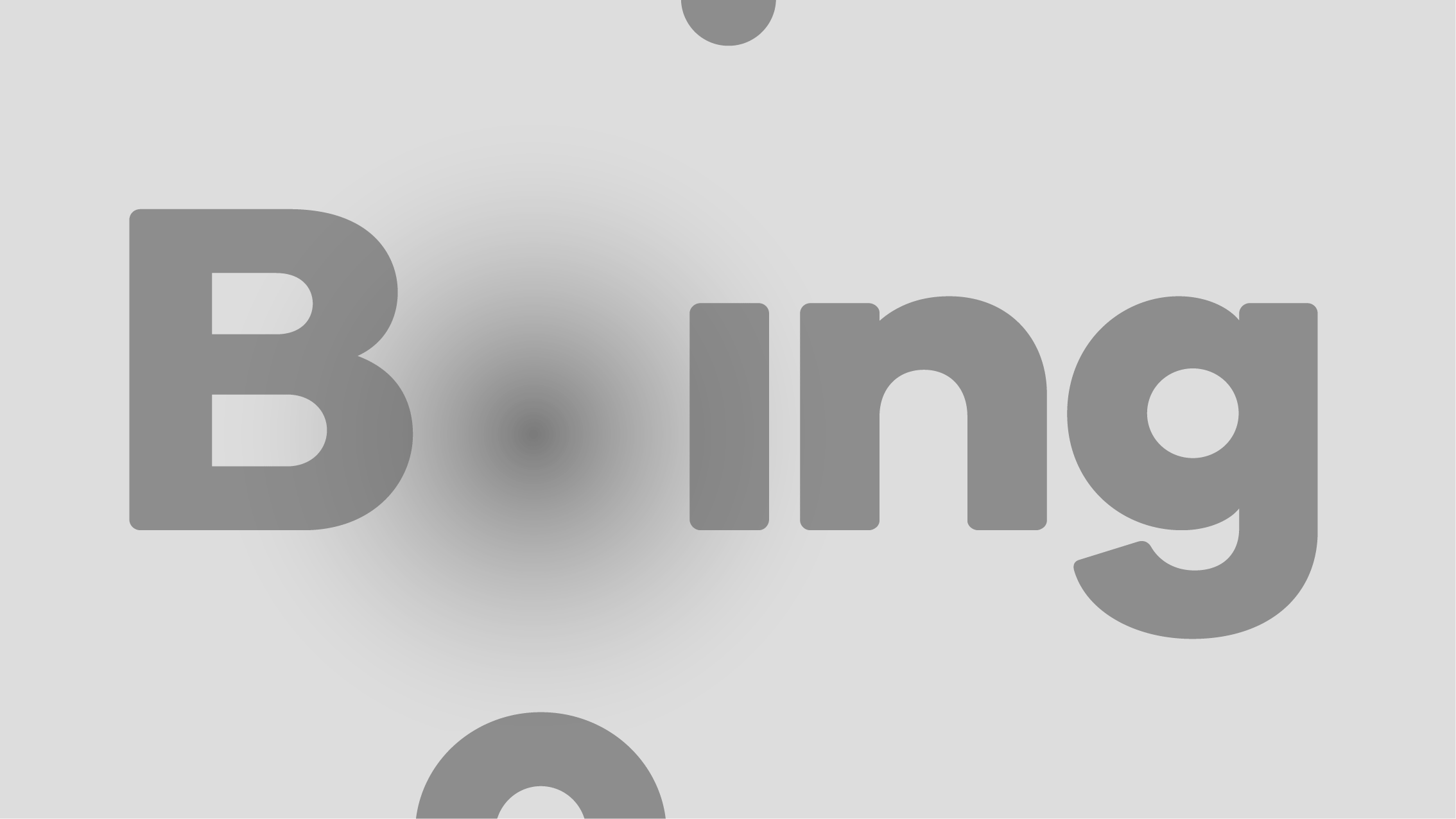
Boing is a bold, rounded sans serif font ideal for a range of communication needs. The face is soft yet solid, imposing yet friendly. Boing has been designed as a characterful display face, but it is highly readable and works equally well as a text face. We just added Boing MONO to our library.